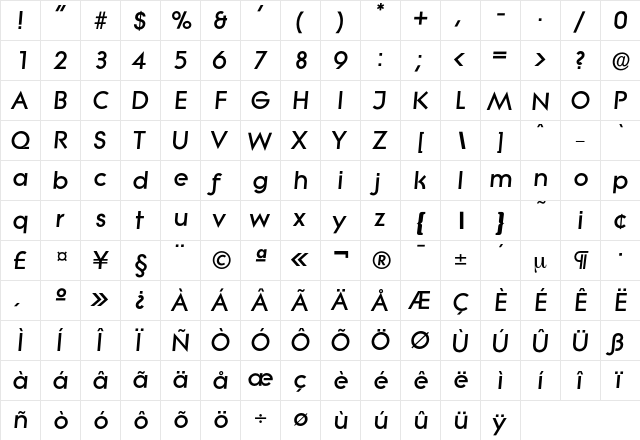
Litera-HeavyIta Regular Font Preview
Litera-HeavyIta Regular
Litera-HeavyIta Regular Font Details
Design Context for Litera-HeavyIta Typeface
Litera-HeavyIta offers clean, dependable letterforms without strong stylistic allegiance, making it a practical choice for designers who need flexibility.
Pro Tip: Use Litera-HeavyIta in both headline and body roles to test its range before committing to a single application.